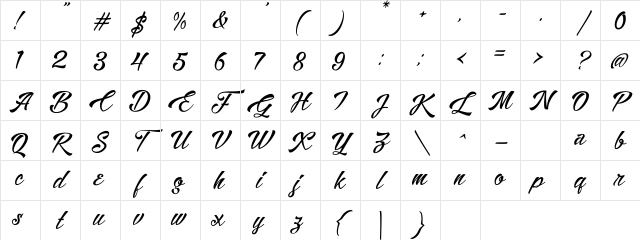
Alisandra Demo Regular Free Font
Alisandra Demo Regular
Foundry: Mikrojihad
Designer: Hendra Pratama (Mikrojihad)
Design Context for Alisandra Demo
Alisandra Demo is a composed and adaptable typeface that performs quietly and consistently across a wide range of design contexts.